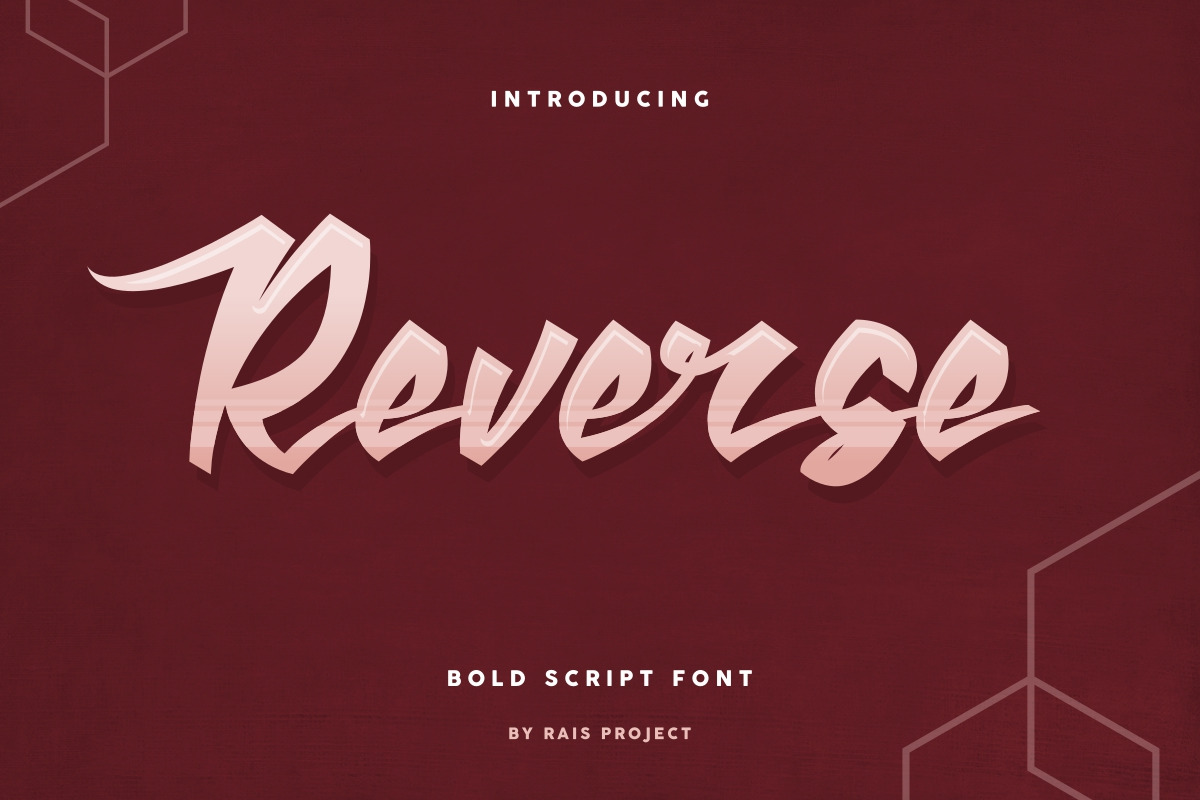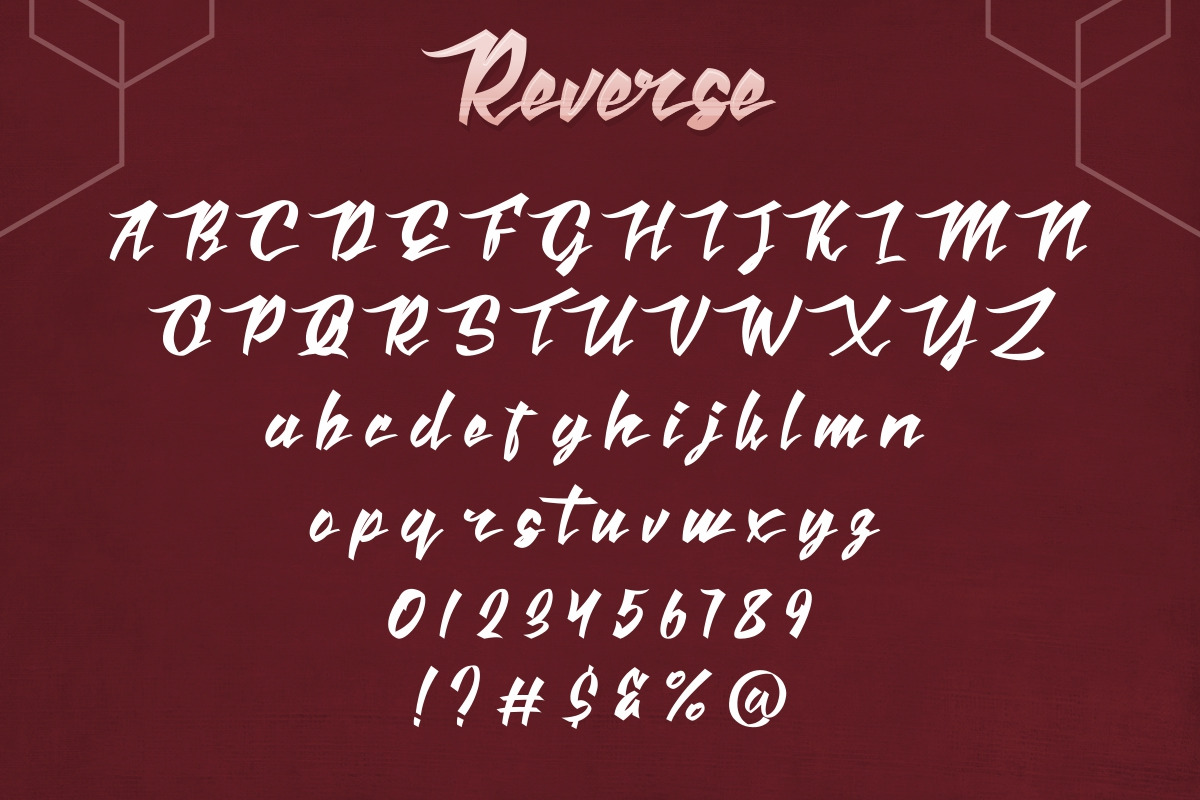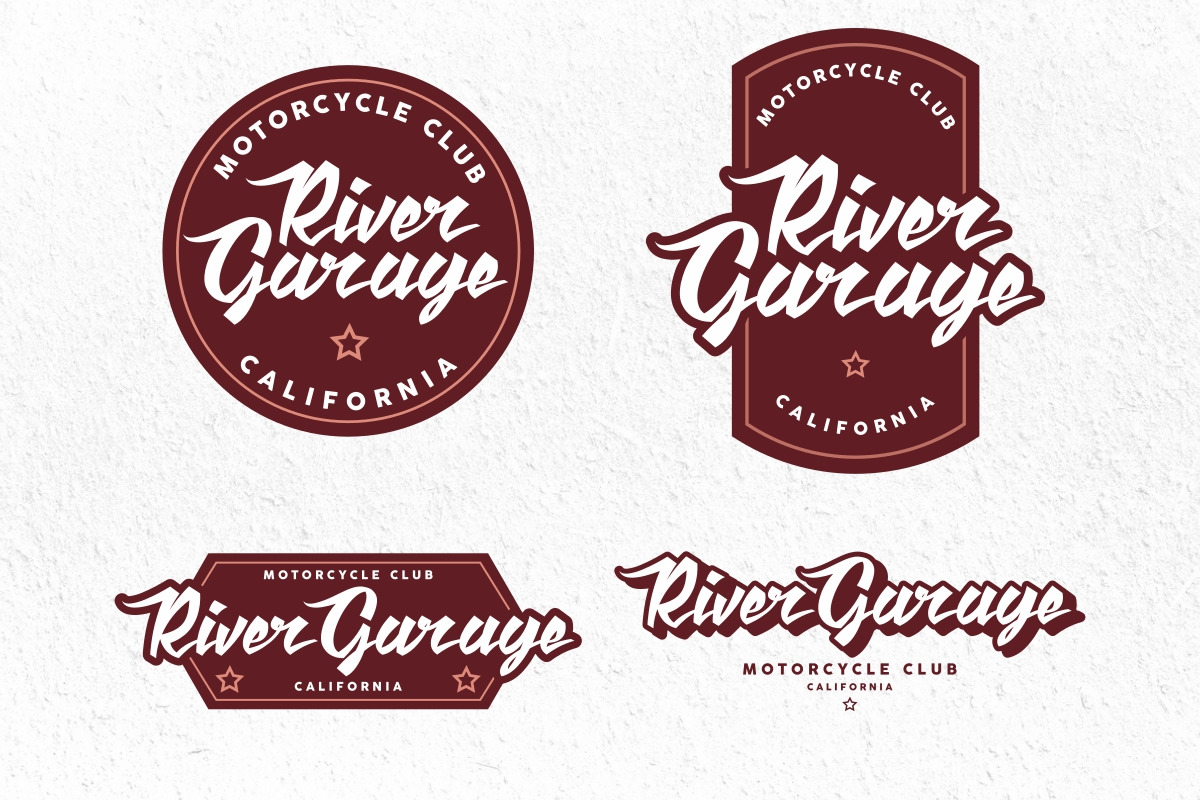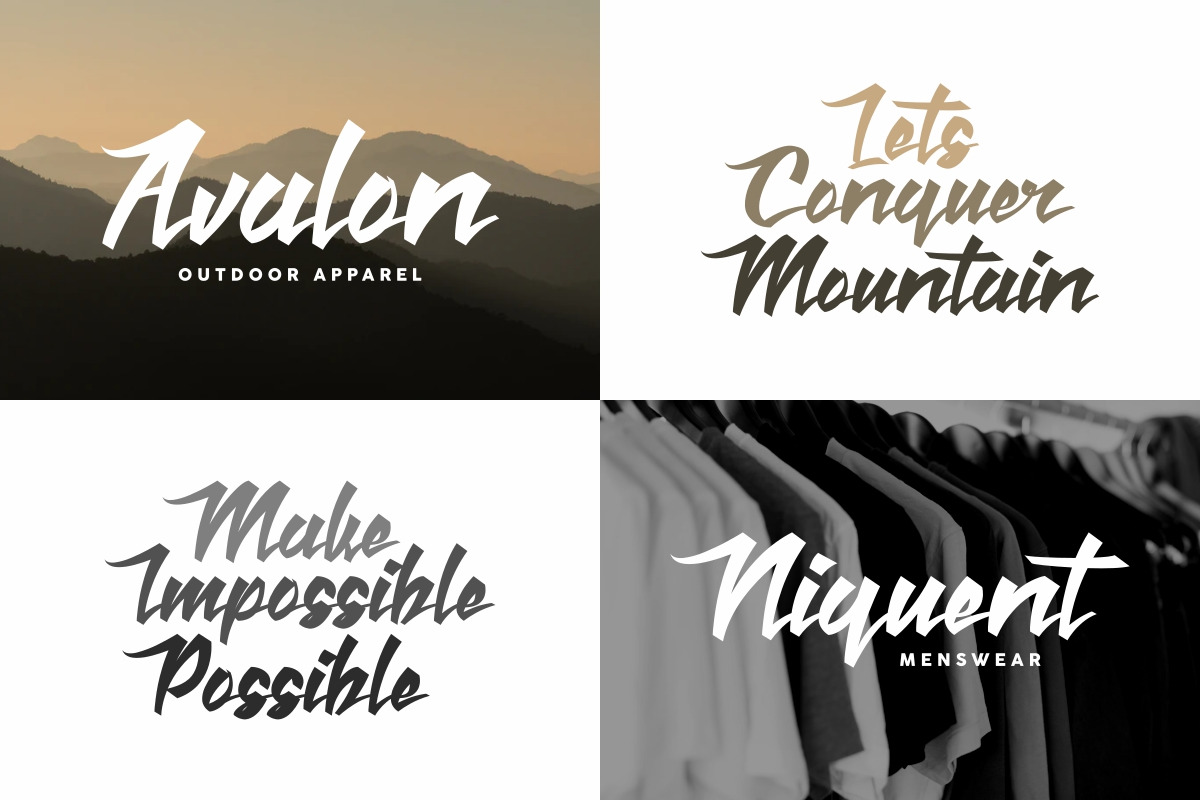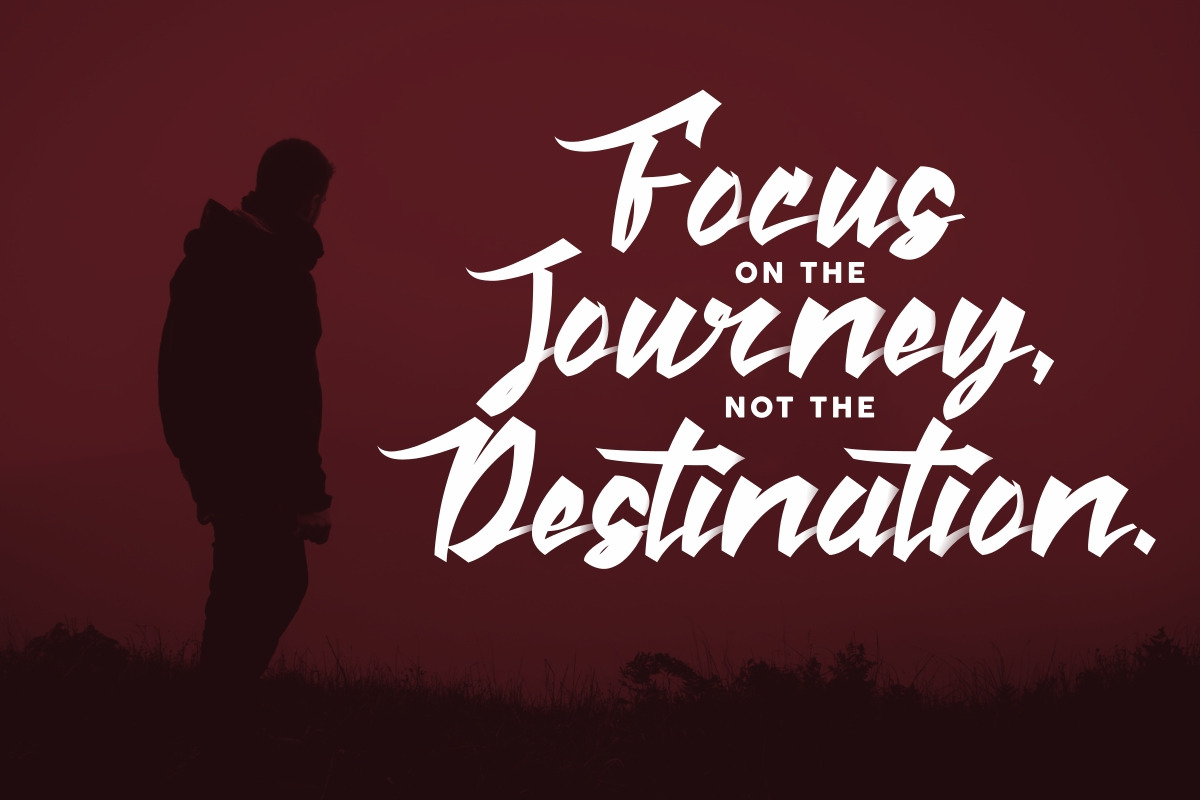
Reverse Brush Bold Calligraphy Font
Reverse Font is bold hand lettering font. It is a script font with calligraphy handwriting style. Reverse Font great for weddings, promotion, events, branding, advertising, magazine, shopping, signage, invitation, stationery, social media posts, product packaging, product designs, label, photography, watermark or and any projects that need calligraphy handwriting style.